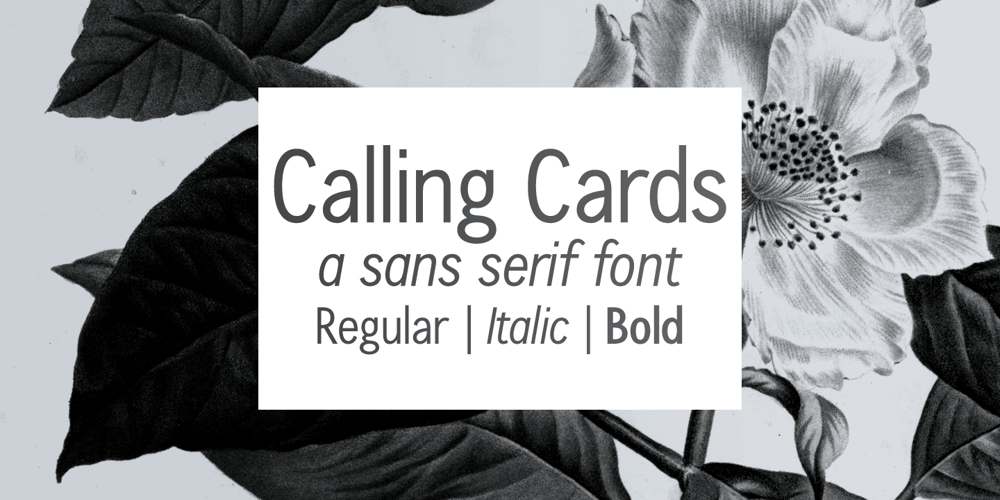
Calling Cards
Calling Cards font
Calling Cards Font Family was designed by Ana Parracho and published by Ana’s Fonts. Calling Cards contains 3 styles and family package options. Calling Cards is simple and clear, slightly condensed sans serif font family in 3 styles: Regular, Italic and Bold. Each font includes ligatures and stylistic alternates.Calling Cards looks great in quotes, logos, print, and social media, and is perfect for both short and long texts, at small and large font sizes.